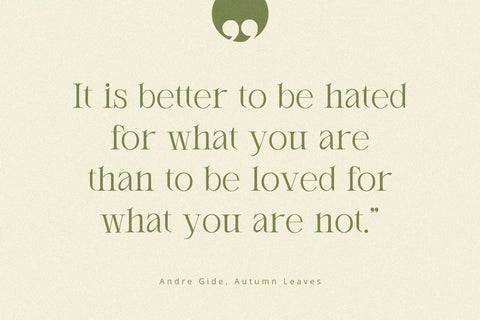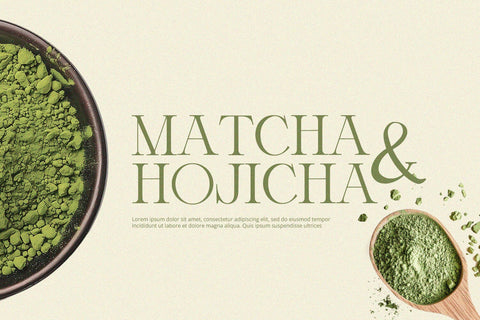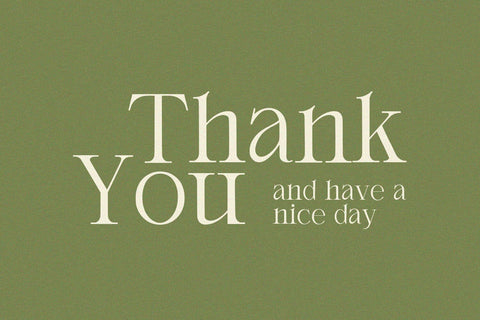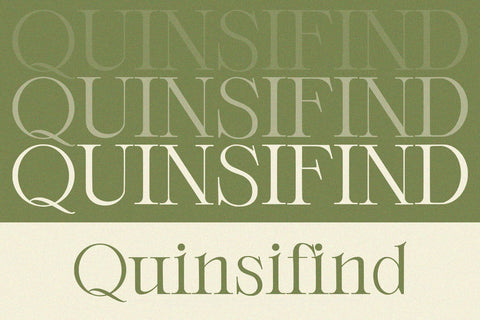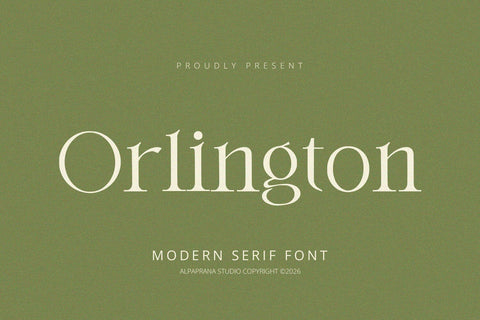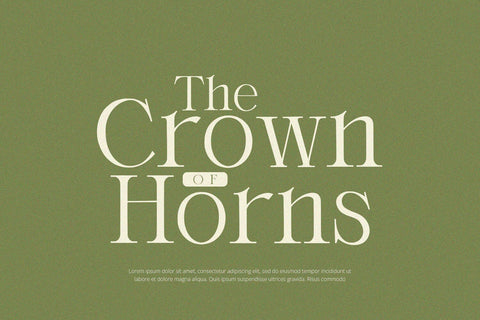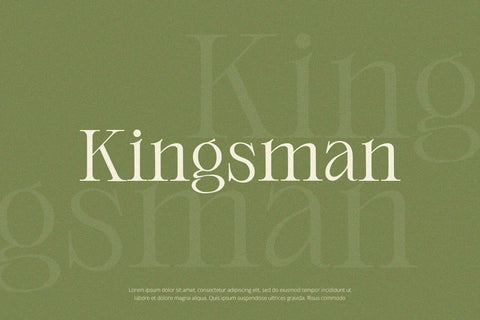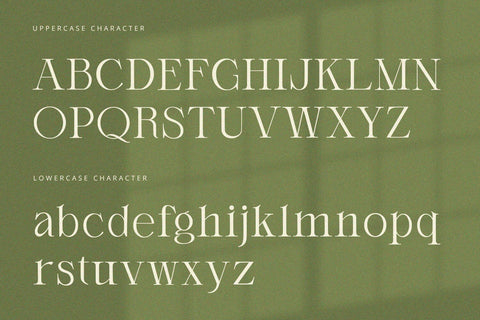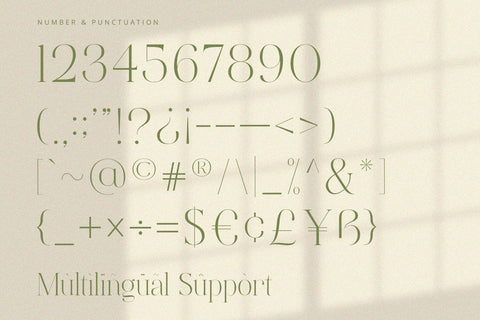
Orlington - Serif Font
Orlington is serif font with modern feels. It will be perfectly used for Branding, Logo Design, Lettering, Logotype, Clothing, Poster, magazine, packaging, posters, shopping bags, t-shirts, book covers, photography, special events and other design project.